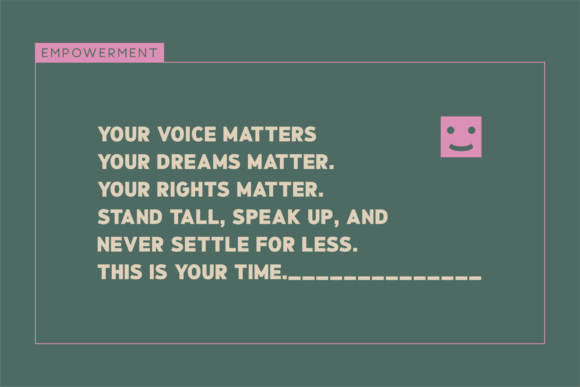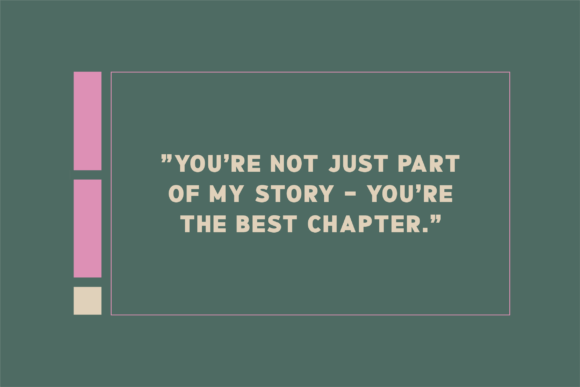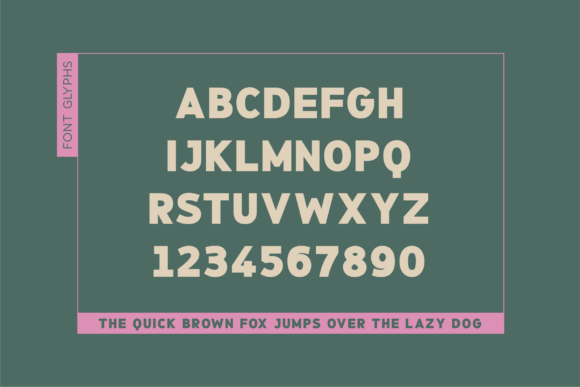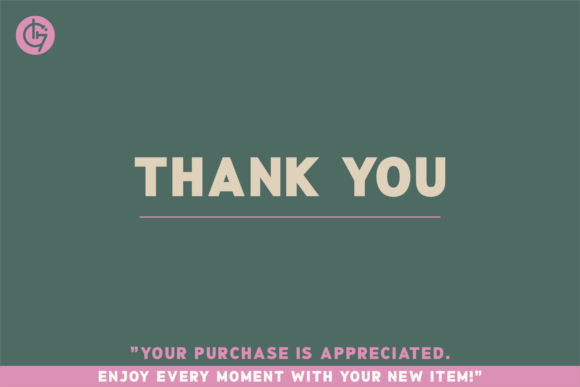
Introduction to Pluston Font
As a designer, there’s nothing quite like the thrill of starting a new creative project. The blank canvas, the endless possibilities – it’s a blank check for your imagination. But, let’s be real, sometimes the real challenge lies not in the creative process itself, but in finding the right tools to bring your vision to life. That’s where the Pluston Font comes in – a game-changing design resource that’s about to revolutionize the way you work.
With its sleek, modern aesthetic and bold, all-caps sans serif design, the Pluston Font is the perfect addition to any designer’s toolkit. Whether you’re working on a high-profile branding project or a simple logo design, this high-quality typeface is sure to make a statement. And the best part? It’s available for free download, so you can start using it right away.
So, what sets the Pluston Font apart from the rest? For starters, its transparent background makes it incredibly versatile, allowing you to use it on a variety of backgrounds without worrying about visual clutter. Plus, its clean lines and minimalist style ensure that your design remains clear and readable, even at small font sizes. With the Pluston Font, you can create designs that are both beautiful and effective – a true win-win for any creative project.
Key Features of Pluston Font
- Features a unique and modern design style, perfect for adding a touch of sophistication to any project
Honest Review: Pluston Font
As a designer, I’m always on the lookout for high-quality design resources to elevate my creative projects. Recently, I had the chance to try out the Pluston Font, and I’m excited to share my thoughts with you.
- The Pluston Font is incredibly versatile, making it perfect for a wide range of creative projects.
- The font’s sleek and modern design is sure to impress, with clean lines and a transparent background that adds a touch of sophistication.
- The font may not be suitable for all types of projects, particularly those requiring a more traditional or vintage aesthetic.
- The font’s transparency may not be suitable for all designs, particularly those with complex backgrounds.
Overall, I’m impressed with the Pluston Font’s quality and versatility. It’s a great addition to any design library, and its transparent background makes it perfect for creative projects requiring a modern touch. However, it may not be suitable for all types of projects, so be sure to evaluate its limitations before adding it to your design resource collection.
Tips for Getting the Most Out of Pluston Font
For a high-quality output, use the Pluston Font with a transparent background. This will allow your design to stand out and create a clean, modern look. Experiment with different font sizes and styles to add depth and visual interest to your creative project.
The Pluston Font is suitable for a wide range of design projects, including:
- Branding materials and marketing collateral
- Web design and digital marketing
Alternatives to Pluston Font
Montserrat Font is a high-quality sans-serif typeface suitable for creative projects that require a modern, urban feel. It’s ideal for digital products, websites, and apps. Montserrat Font is free to download and can be used for both personal and commercial projects.
Montserrat Font is similar to Pluston Font in its clean and minimalistic design, but it has a more geometric feel and is more suitable for digital interfaces.
Open Sans Font is a popular, high-quality sans-serif typeface that’s ideal for design projects requiring a clean and modern look. It’s free to download and can be used for both personal and commercial projects, making it a great design resource.
Open Sans Font is similar to Pluston Font in its clean design, but it’s more versatile and suitable for a wider range of creative projects, including print and digital media.